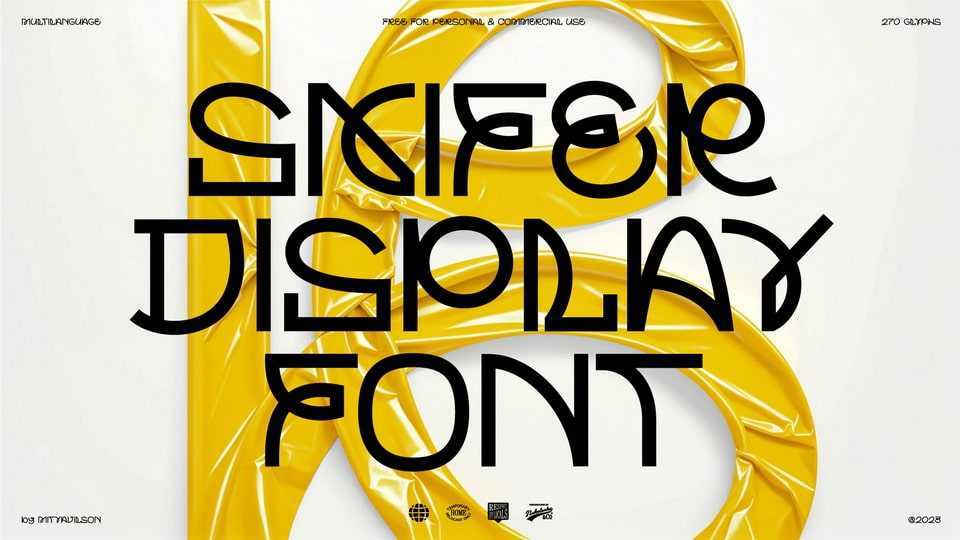
Skifer Display Font › Fontesk – Download Grátis
Download Skifer font, a drawn-out experimental typeface that is free in all its manifestations, unrestricted in the choice of shapes and direction of lines in letters. Of course, Skifer font is not intended to use as a typeface, but it will certainly become an excellent assistant in giving character and emotions to your future project.
Designer: Mitya Vilson